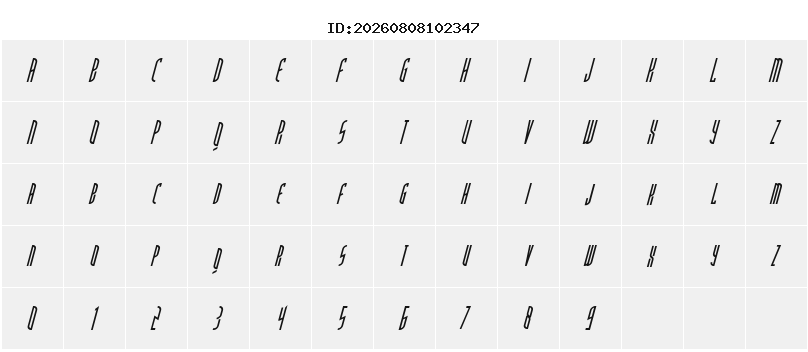
PostModernOblique Preview
• Font Name: PostModernOblique
About PostModernOblique.ttf
PostModernOblique.ttf is a modern, elegant sans-serif font designed for ultimate readability and visual harmony. Perfect for branding, headlines, web design, and print materials.